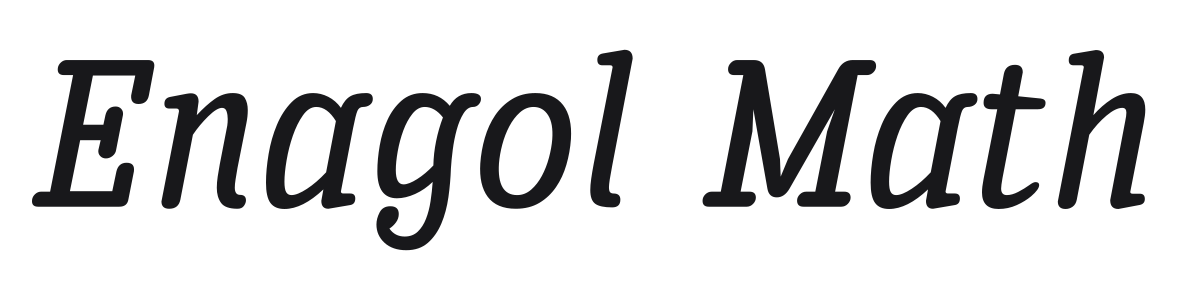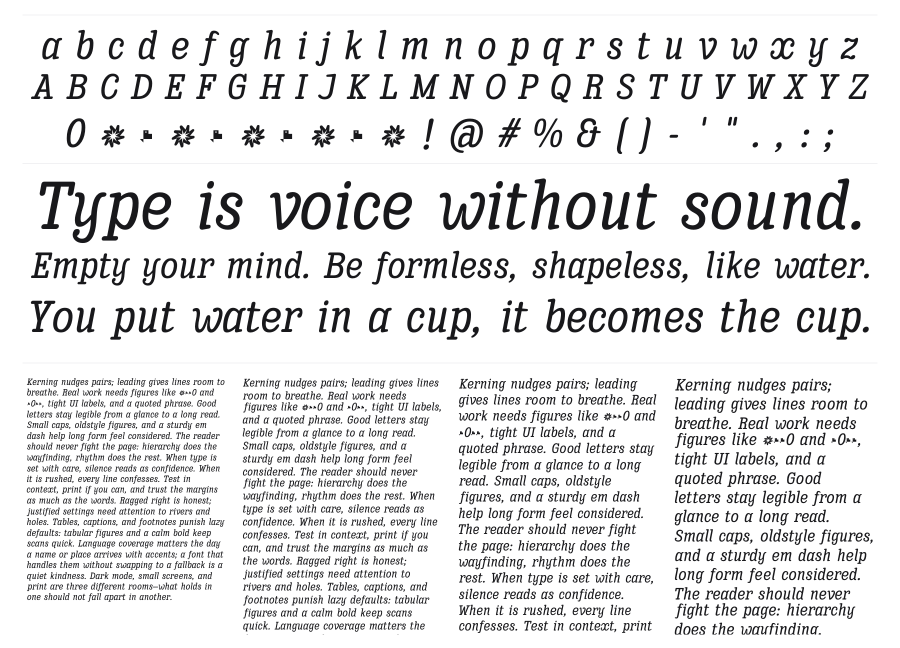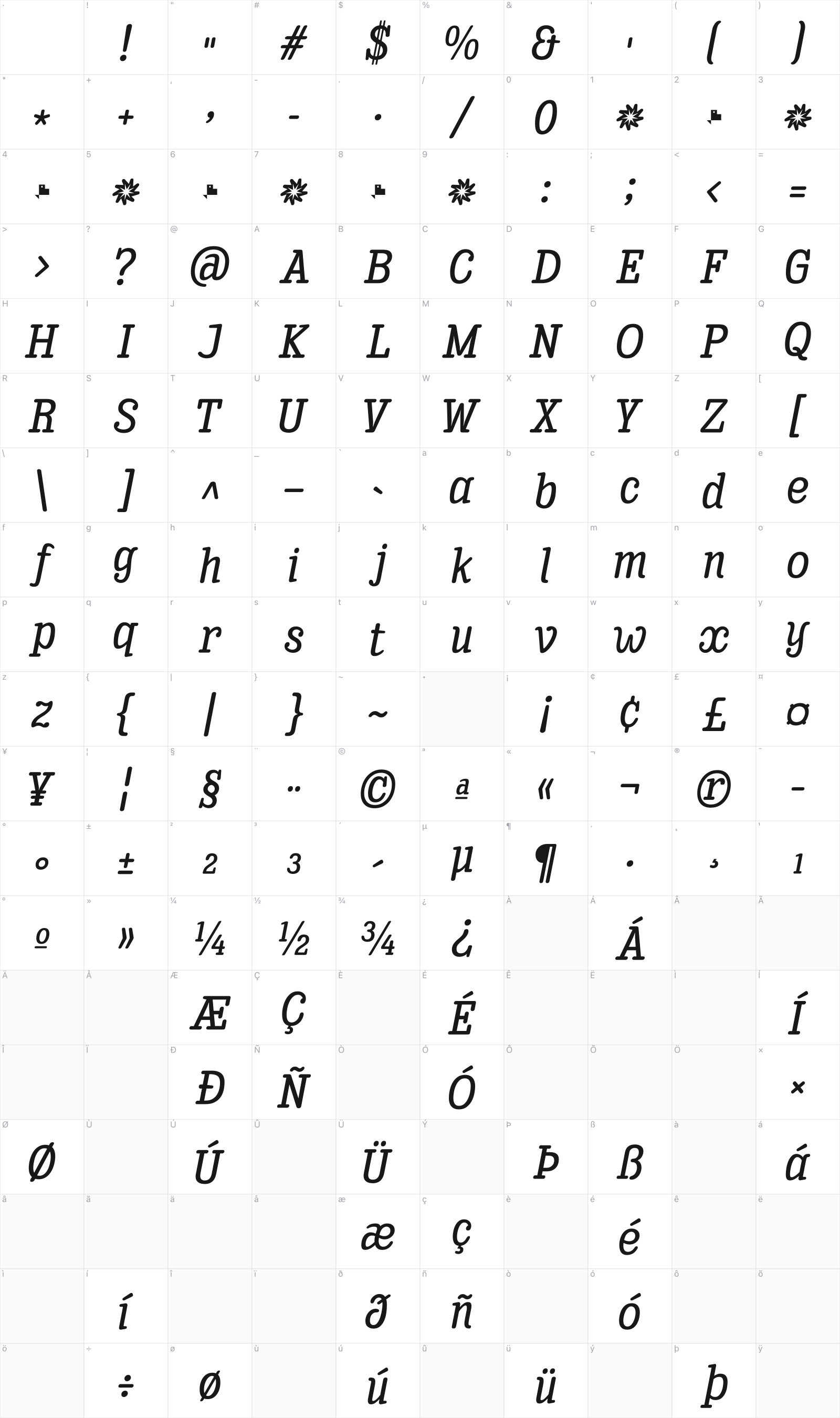
Enagol Math
Enagol Math is a humanist slab-serif by deFharo with bracketed, lightly rounded serifs and a fluid italic style that keeps it friendly rather than stiff. The low stroke contrast and open proportions give it good readability at smaller sizes while still holding up as a text display face. Its name nods toward scientific and mathematical publishing, where a warm but structured slab-serif earns its place.